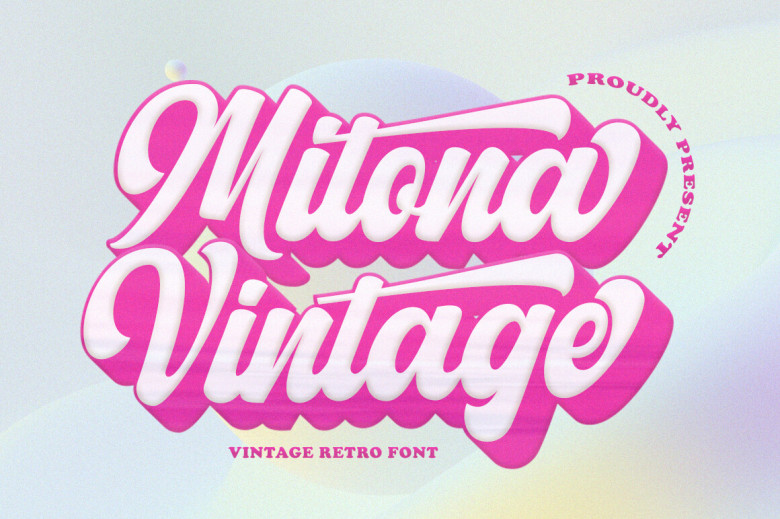
Mitona Vintage Font
Mitona Vintage font is an timeless gem, inspired by classic logotype letters of yesteryear. With its retro aesthetic and eye-catching features, Mitona Vintage adds an old school charm that can elevate designs for timeless elegance and style. Ideal for creating eye-catching headlines, logos and branding elements.
Mitona Vintage Retro Font